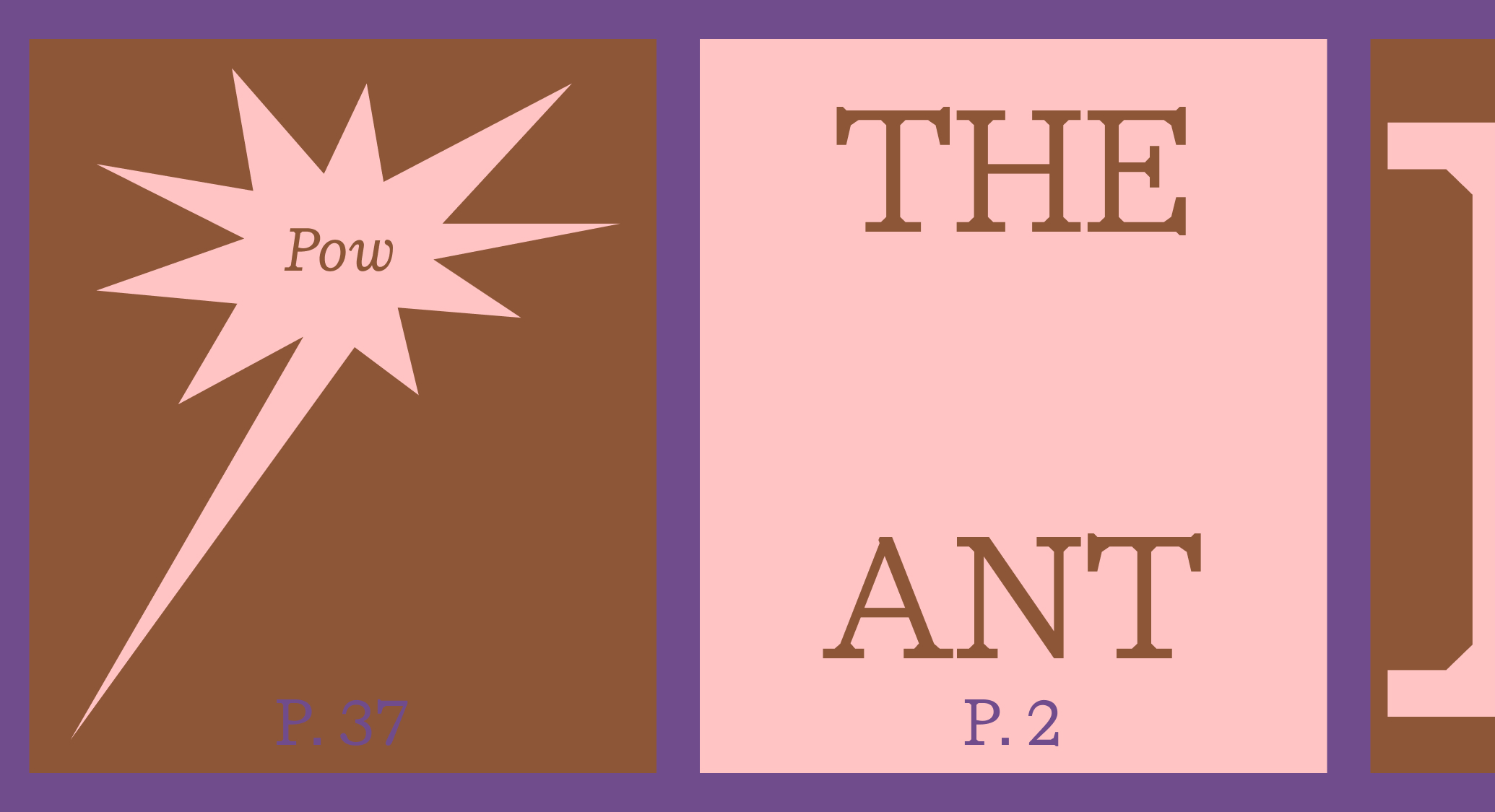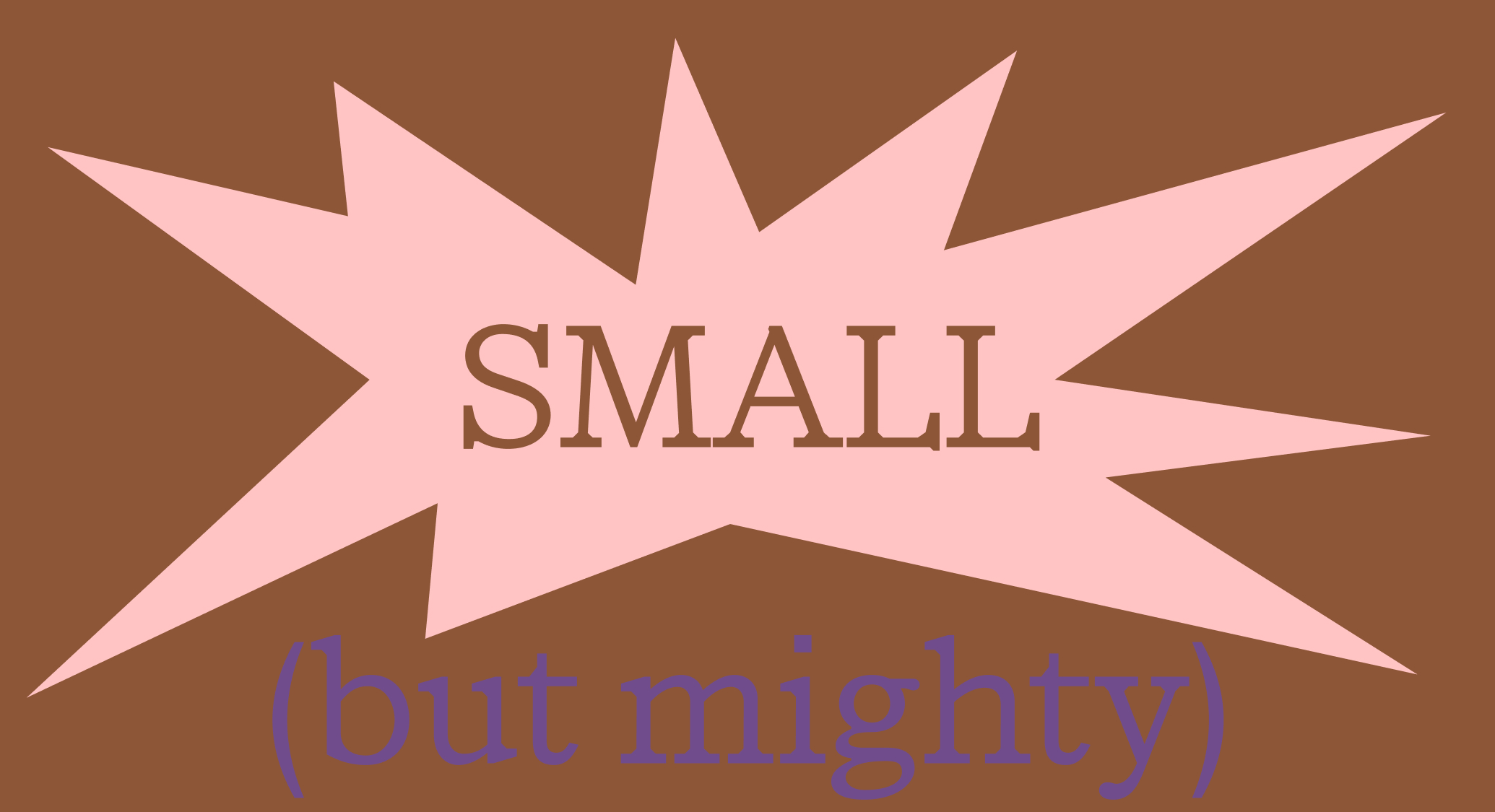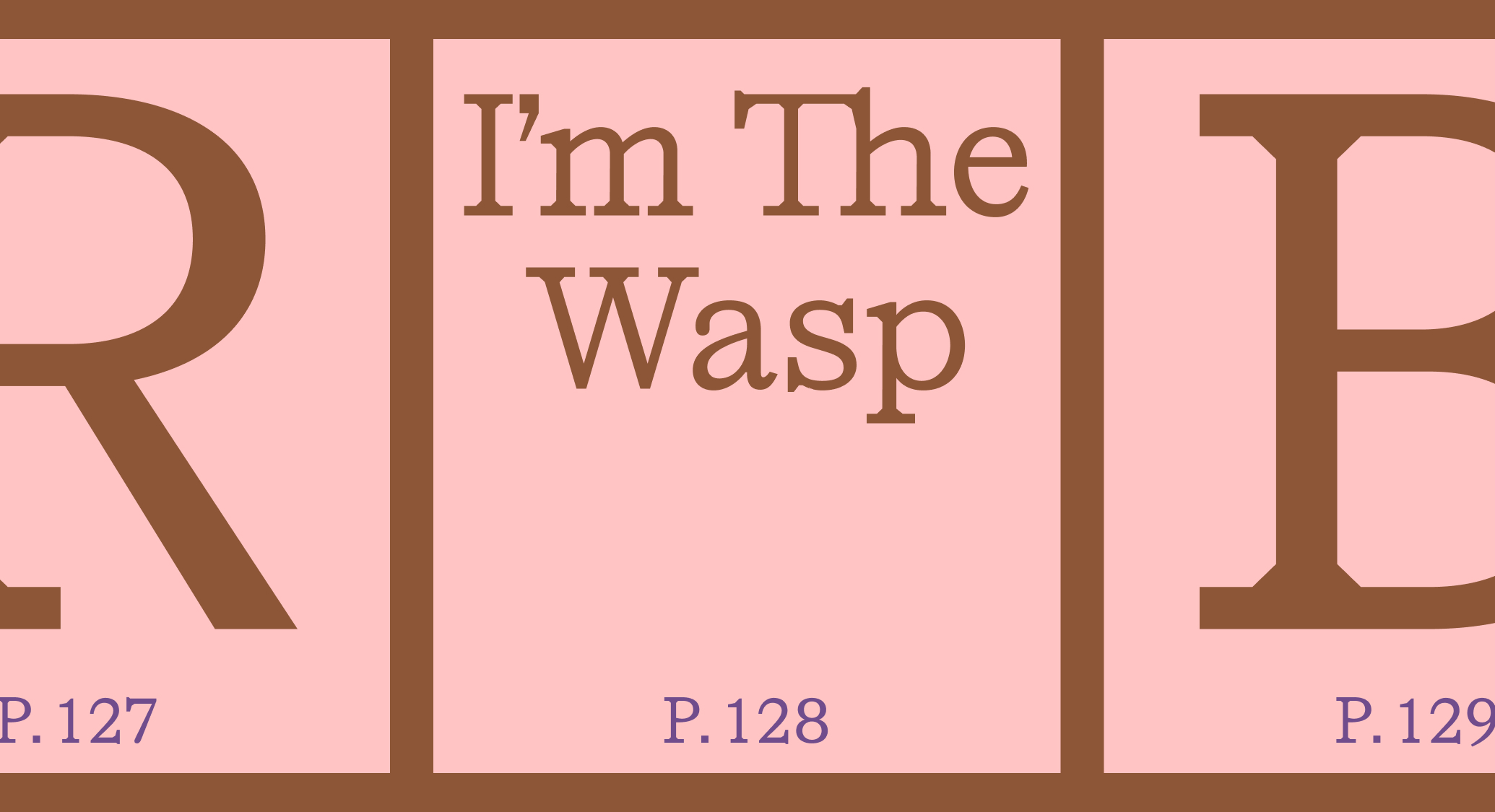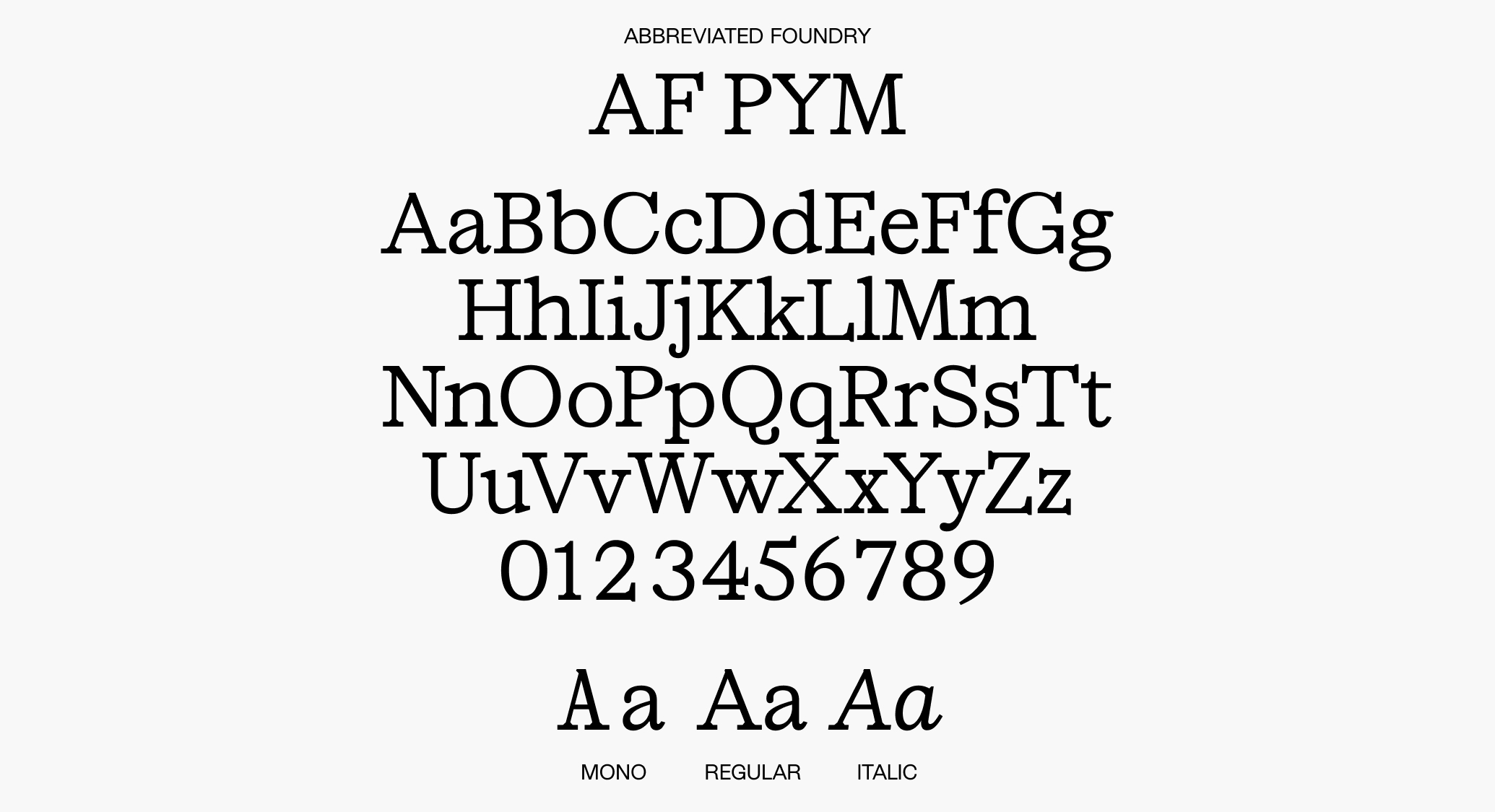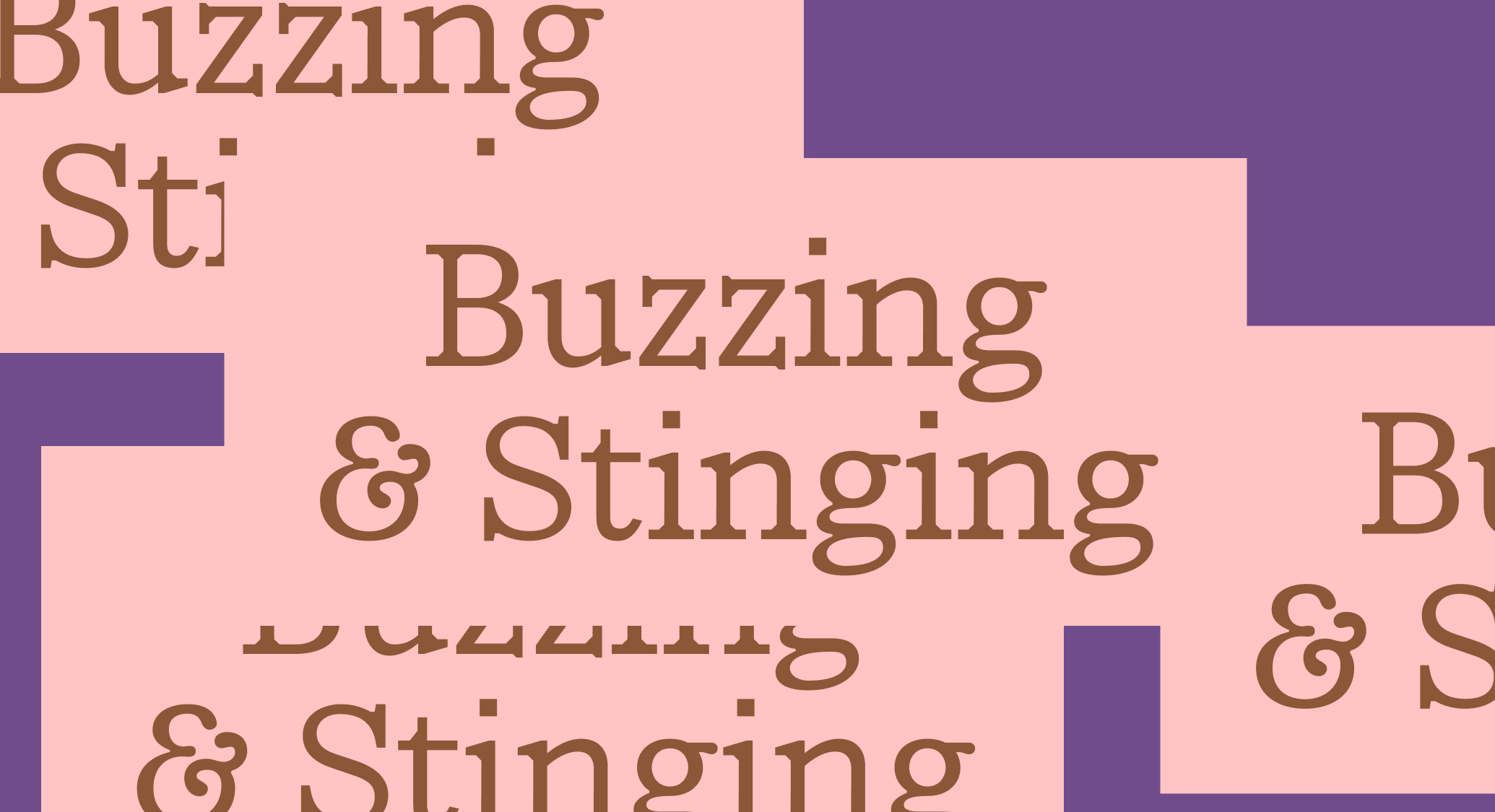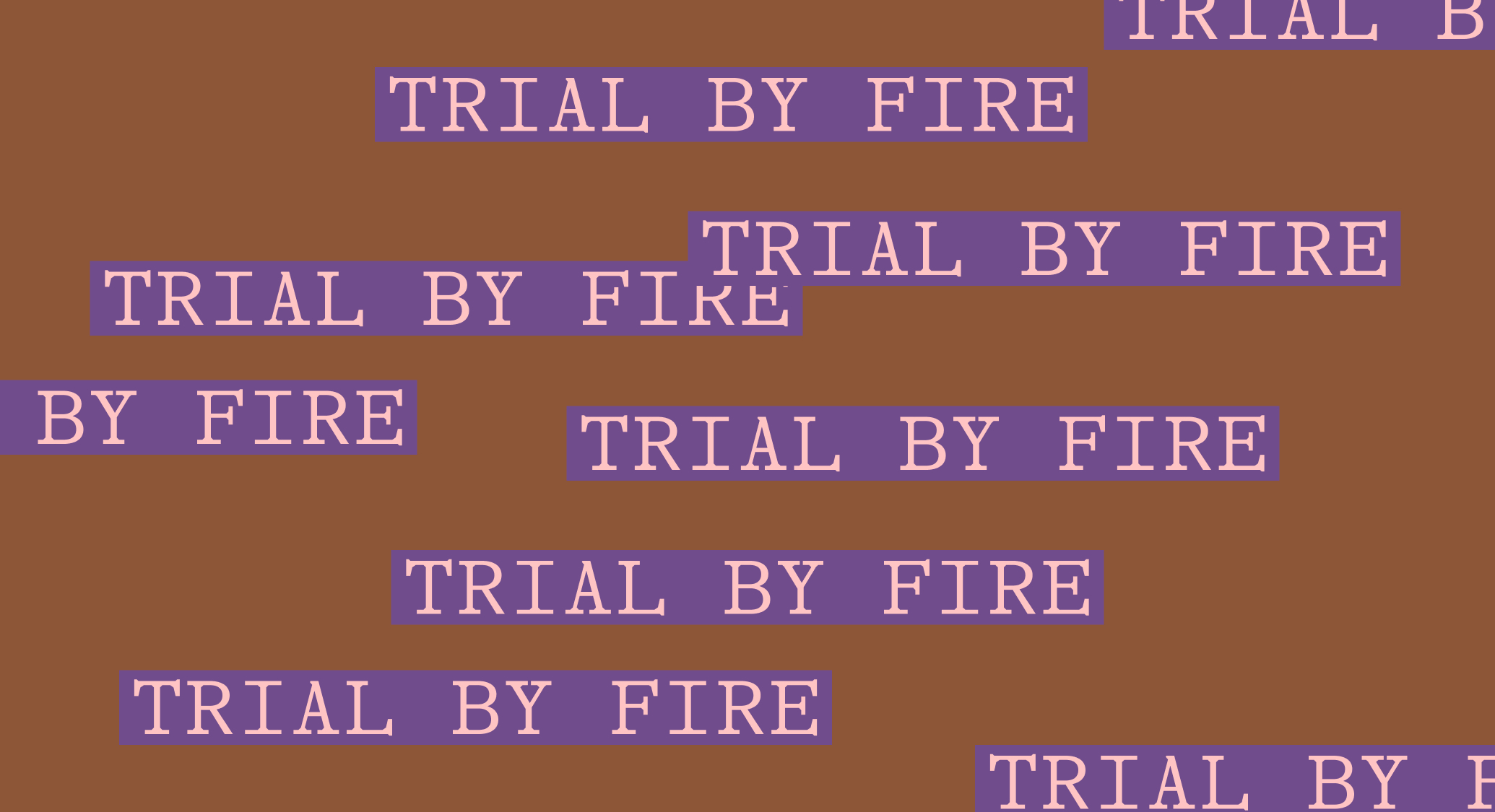
AF Pym
AF Pym is a chunky serif bursting with unencumbered energy . Its beveled forms and oversized teardrop terminals lend a playful, approachable energy, while its solid structure packs a powerful punch. Inspired by the “small but mighty” ethos, it’s perfect for brands that scale from subatomic to super-sized.